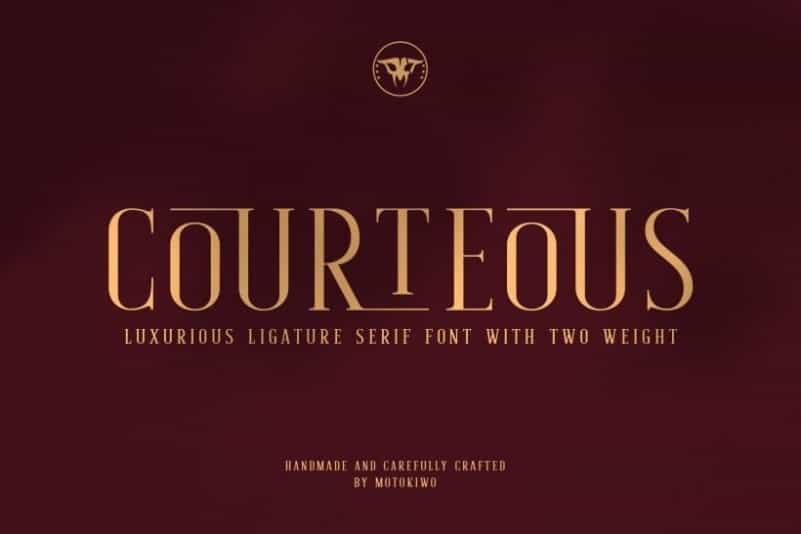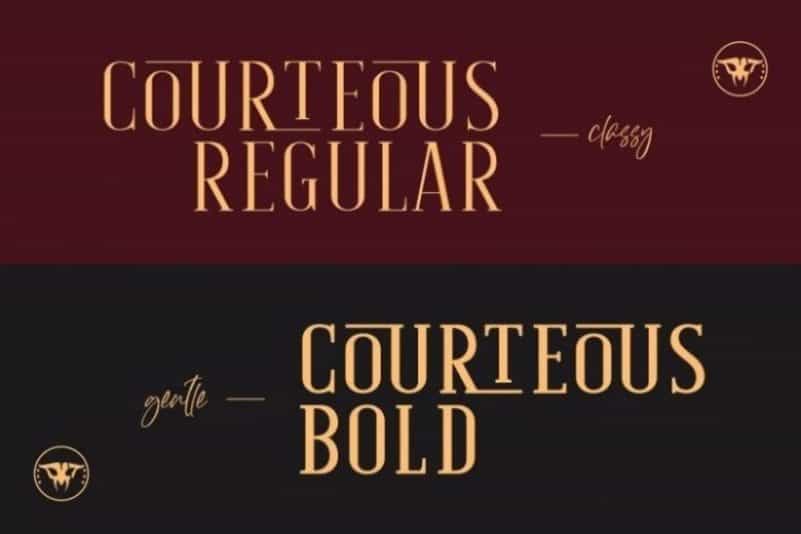
Courteous is serif typeface which is ideal for both a enjoyable reading experience and also to create striking headlines as well as subtext applications that use heavier weights.